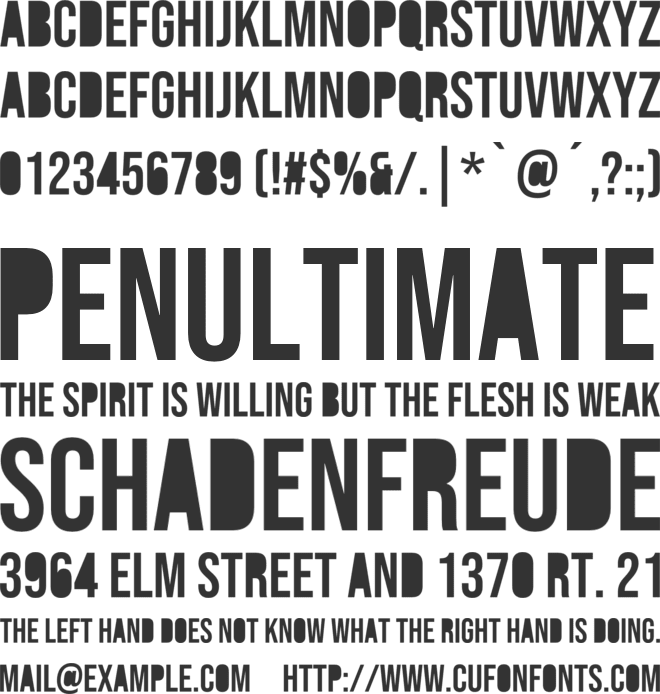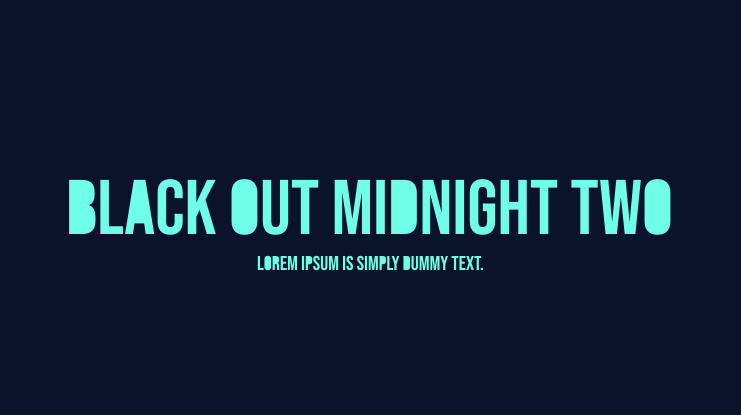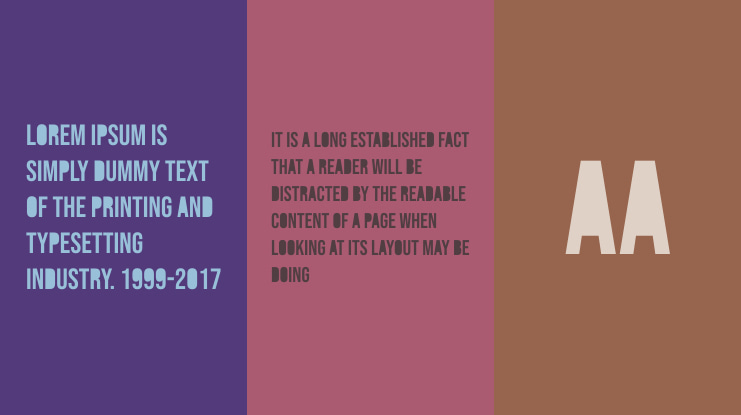
Black Out Midnight Two Font Family
Black Out is a font with a cheerful vibe. It has two: Midnight Two and Sunrise. You can -
* Use it for a band logo.
* Use it for soundtracks.